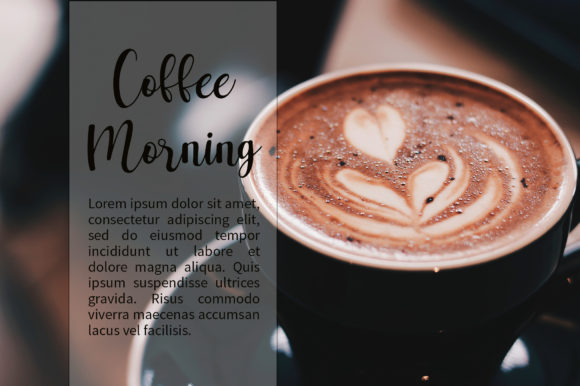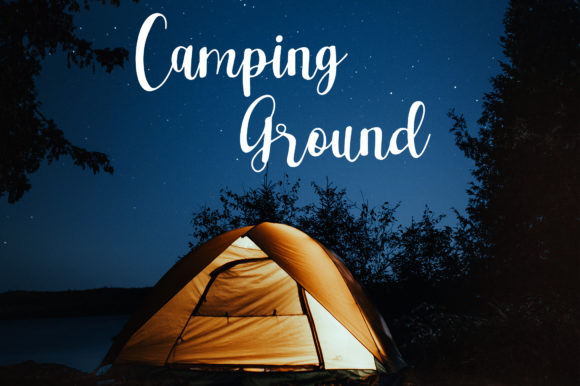
Procreate Font
db-ku.com - Script & Handwritten -- Procreate is a chic and trendy script font that emanates sophistication and elegance. Its stylish alternates and ligatures make this font the perfect match for any project.